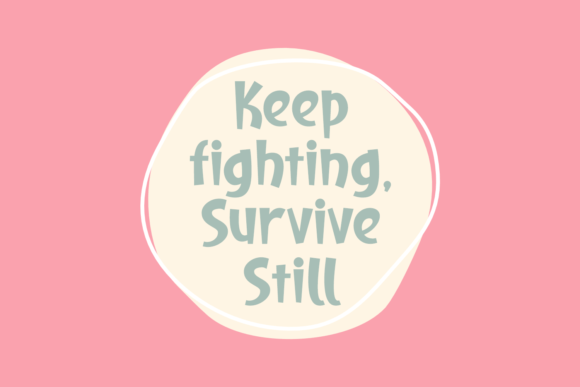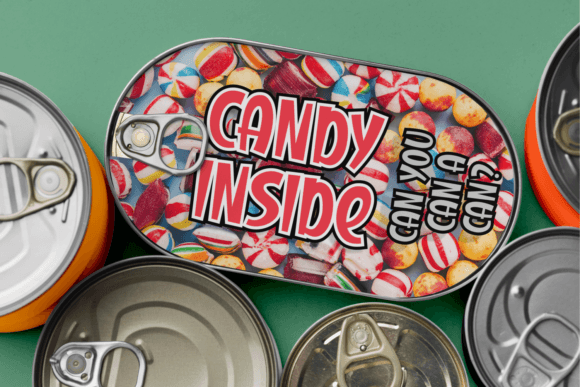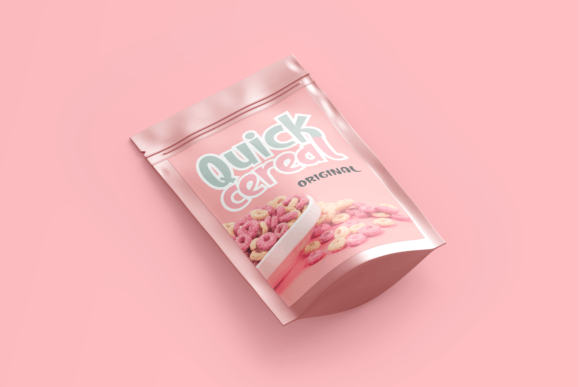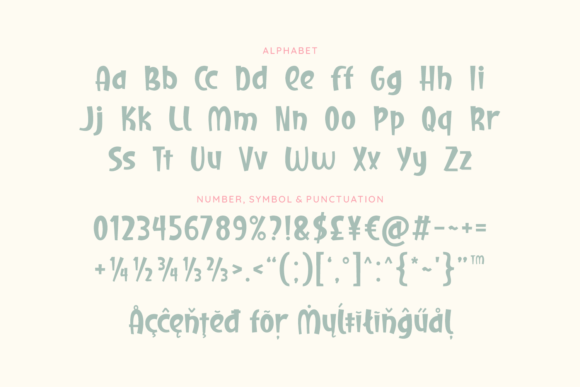
Introduction to Mother Amela Font
Mother Amela is a lovely display font.
This fontโs playfulness will level up your next design project Use it for various projects such as logos, branding, ads, invitations, greeting cards, planners, photo albums, decorations, and much more.
Key Features of Mother Amela Font
Why Choose Mother Amela Font?